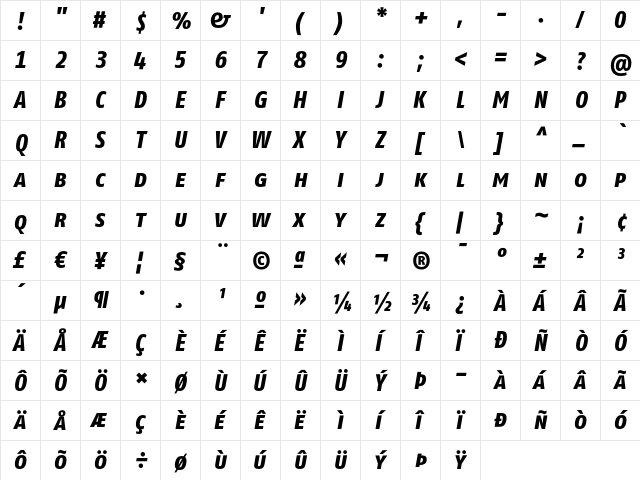
FagoCoTf ExtraBoldItalicCaps
Design Context for FagoCoTf Typeface
FagoCoTf takes a measured approach to typography — its balanced proportions and neutral character make it a reliable workhorse for both digital and print work. The slanted form adds forward momentum and visual energy. Its bold stroke weight gives it real presence on the page.
Pro Tip: Try FagoCoTf for annotation and caption copy alongside an upright companion — the contrast in angle creates a dynamic but ordered typographic system.